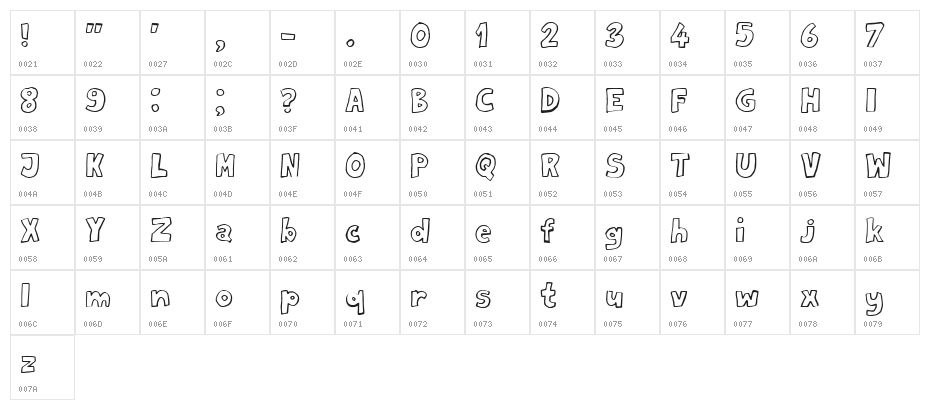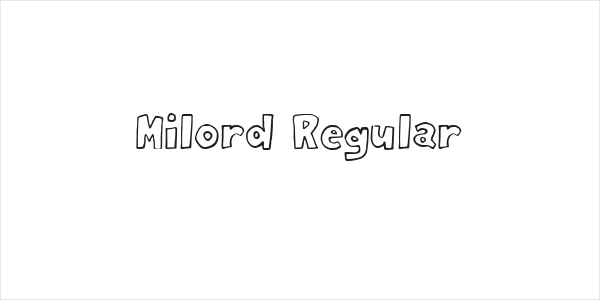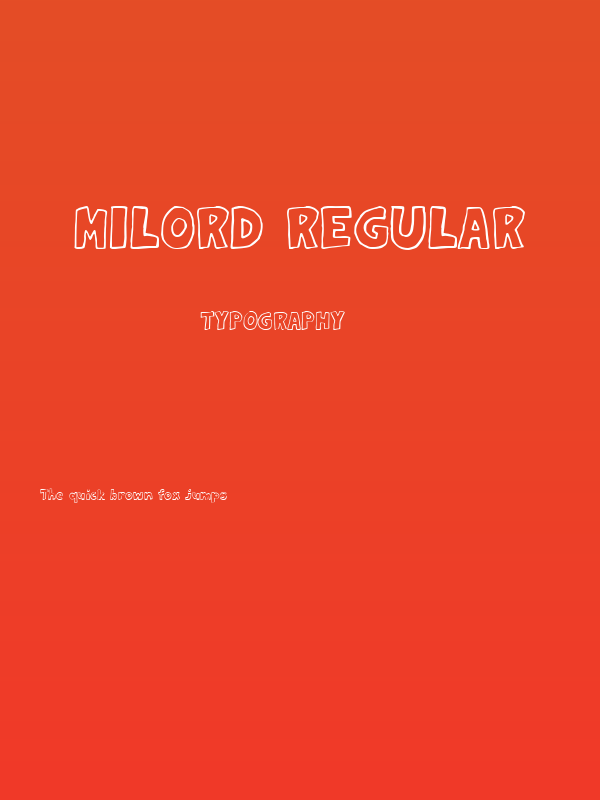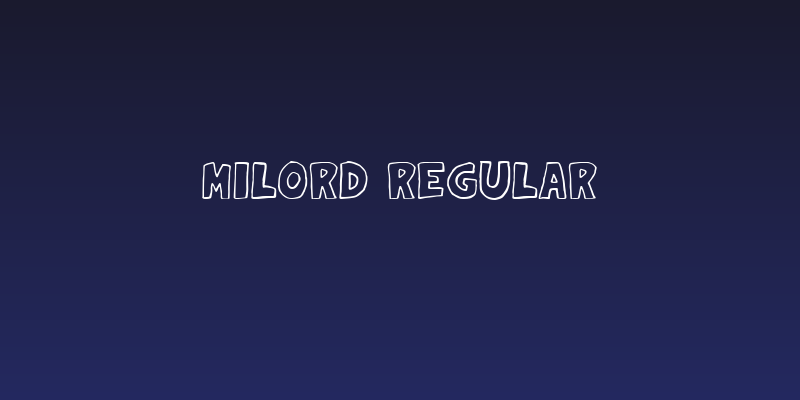
Milord Regular Font
Milord Regular Description
This playful and bold font features a hand-drawn, cartoonish style with thick, uneven strokes that give it a lively and informal appearance. The characters have a slightly irregular shape, adding to the whimsical and friendly feel. The uppercase and lowercase letters maintain a consistent style, with rounded edges and a slightly exaggerated form. Numbers and special characters follow the same design principles, ensuring a cohesive look across all elements. This font is perfect for projects that require a fun and approachable aesthetic.
| Proposed Projects | Ideal for children's books, comic strips, playful branding, and casual invitations. |